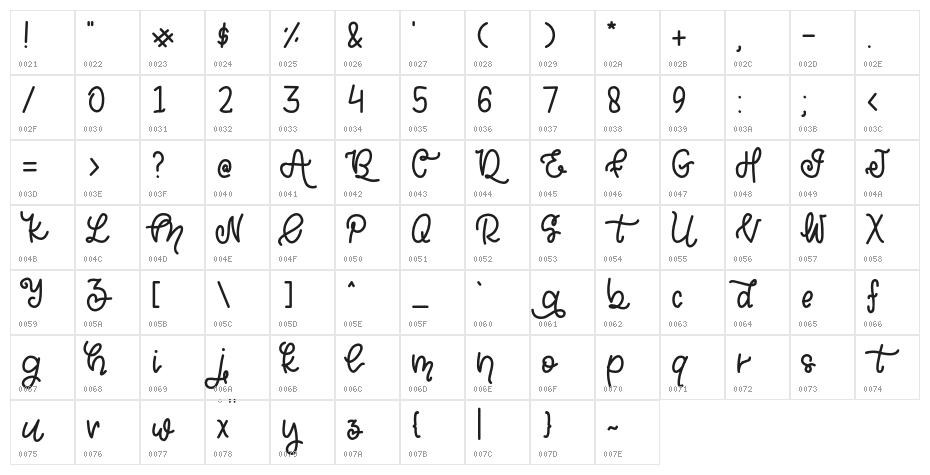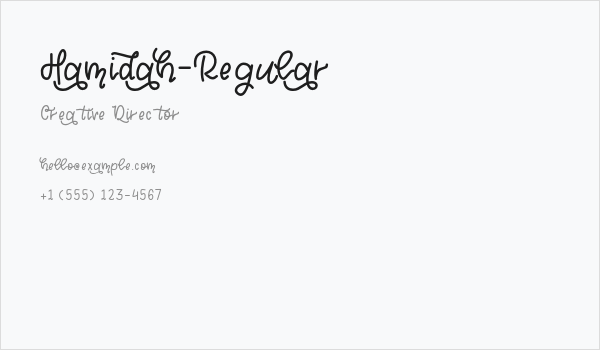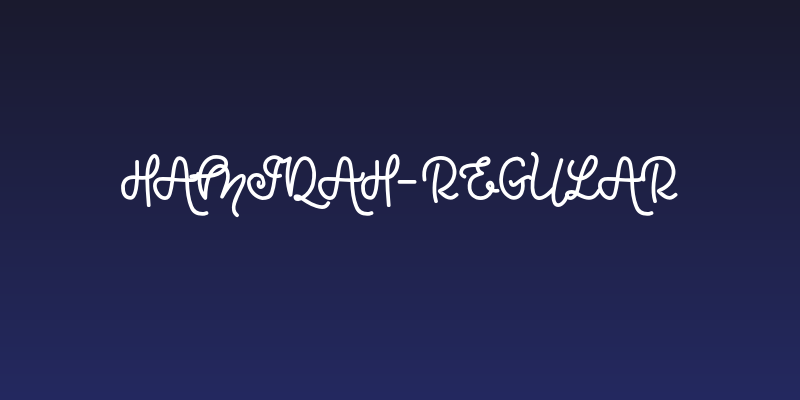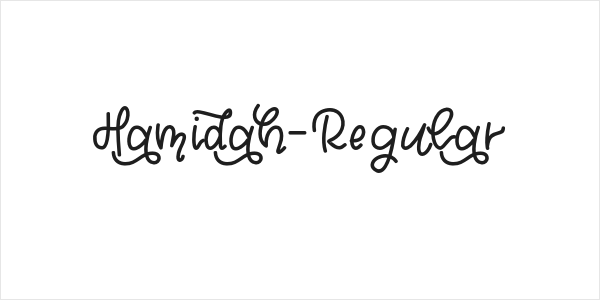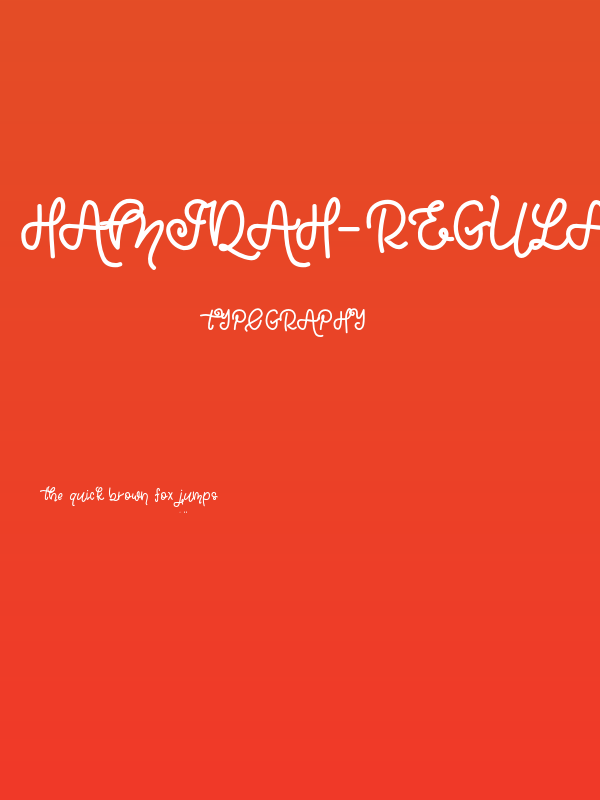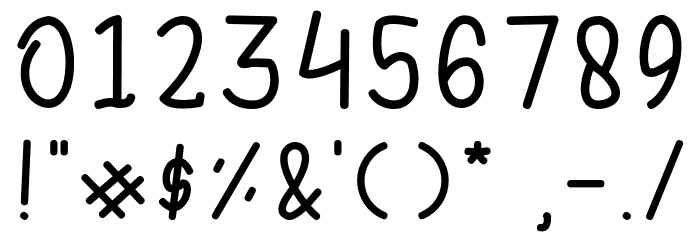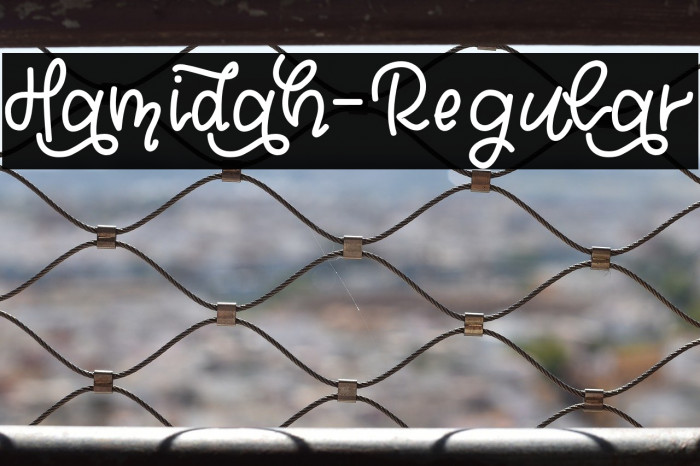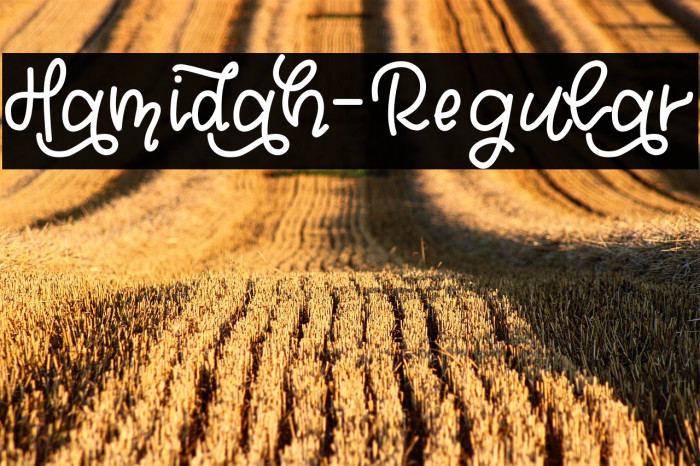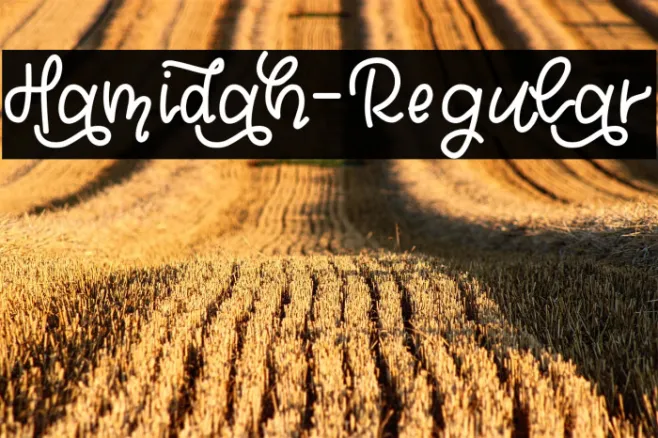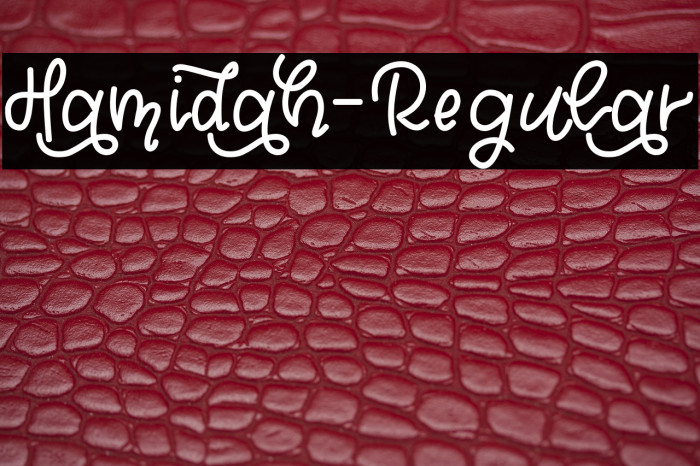
Hamidah-Regular Font
Hamidah-Regular Description
This font features a playful and whimsical script style, characterized by its flowing, interconnected letters and decorative loops. The uppercase letters are bold and expressive, with unique flourishes that add a sense of movement and creativity. The lowercase letters maintain a consistent style, with smooth curves and a slightly informal appearance. Numbers and special characters are designed to match the overall aesthetic, ensuring a cohesive look across all text. This font is ideal for projects that require a touch of elegance and personality, such as invitations, greeting cards, or branding materials.
| Proposed Projects | Ideal for invitations, greeting cards, branding materials, and creative projects. |